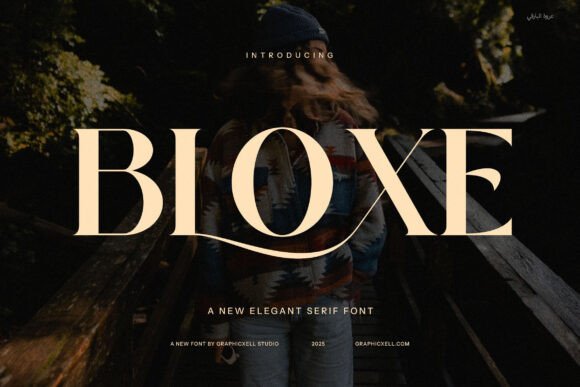
The Bloxe Font: Elevating Designs with Modern Sophistication
I’ll never forget the moment I stumbled upon the Bloxe font. I was working on a luxury branding project for a high-end fashion client, and I was struggling to find the perfect typeface that exuded both elegance and modernity. The client wanted a font that would make their brand stand out, yet still convey a sense of timeless sophistication. After hours of scouring through font libraries, I finally discovered Bloxe – and it was love at first sight! ✨
The Good: What I Love About Bloxe
- ✅ Clean lines and refined serifs that scream sophistication
- ✅ Artistic details that add a touch of creativity to any design
- ✅ Unique ligatures and alternates that offer endless possibilities for customization
- ✅ Perfect balance of functionality and style – it’s both beautiful and practical!
The Not-So-Good: A Few Quirks to Keep in Mind
While Bloxe is an amazing font, there are a few things to watch out for:
- ⚠️ Some characters may not work well in smaller font sizes – be mindful of legibility
- ⚠️ Ligatures can be a bit tricky to use – make sure to experiment with different combinations
- 🤔 It may not be the best fit for very informal or playful designs – Bloxe is more suited for high-end branding and editorial projects
The Story Behind Bloxe: Designer Inspiration
Bloxe was designed with the goal of creating a modern typeface that exudes sophistication and elegance. The designer, inspired by the works of renowned typographers, aimed to craft a font that would be both timeless and contemporary. With its clean lines, refined serifs, and artistic details, Bloxe is the perfect blend of form and function.
Q: What makes Bloxe suitable for high-end branding?
A: Bloxe’s elegant design, refined serifs, and artistic details make it an excellent fit for luxury brands looking to convey sophistication and modernity.
Q: Can I use Bloxe for digital designs?
A: Absolutely! Bloxe is optimized for both print and digital use, making it a versatile choice for various design projects.
Q: Is Bloxe easy to read?
A: Yes, Bloxe is designed to be legible and easy to read, even at smaller font sizes. However, as with any font, it’s essential to test it in your specific design context.
Q: Can I use Bloxe for editorial projects like magazines or brochures?
A: Yes, Bloxe is an excellent choice for editorial projects, offering a perfect balance of style and functionality.